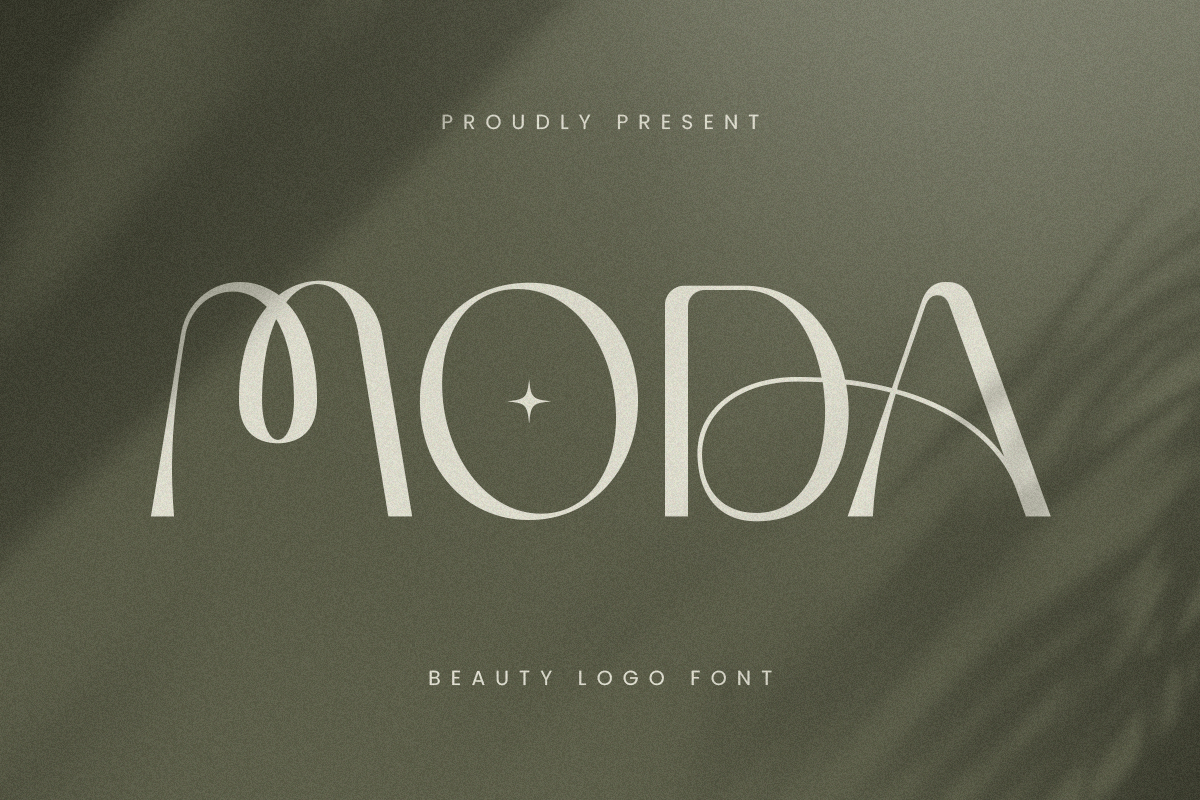
Moda
-Beauty Logo Font
Moda - Beauty Logo Font
Moda is a beauty-focused logo font that blends chic sophistication with clean modern style. Designed for fashion, cosmetics, wellness, and editorial branding, Moda font brings a high-end, soft aesthetic to your visual identity. Its refined curves and sleek lines make it perfect for logos, packaging, social media, and beauty campaigns that require an elegant, modern touch.
Inspired by the elegance of runway typography and luxury beauty branding, Moda font reflects both trend and timelessness. It's highly legible yet stylish—perfect for empowering beauty brands, boutique studios, and lifestyle influencers who want to make a lasting impression.
Let Moda font elevate your brand presence with its feminine charm and polished character, made to stand out in both digital and print.
Moda Beauty Logo Font Features:
• Elegant and Feminine Display Style
• Ideal for Logos, Beauty Products, Fashion & Social Media
• Punctuation, Numbers, and Symbols